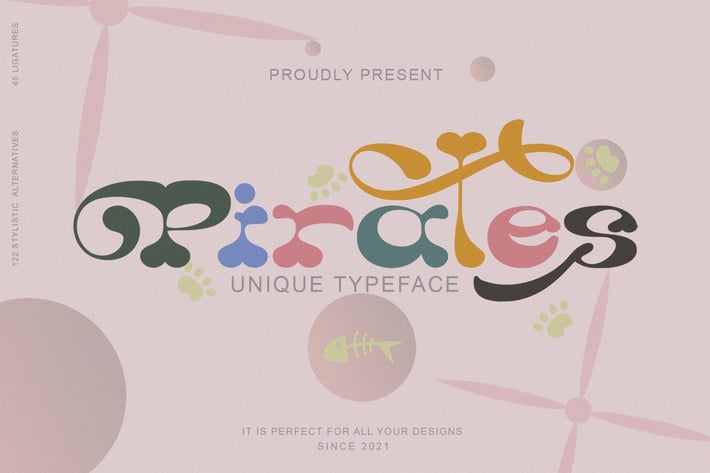
Pirates Typeface
Introducing Pirates Typeface. This font is inspired by the design styles of the 70s. The style is funny, groovy, classic, not serious but has aesthetic and unique value, besides that the Pirates font is very easy to remember and becomes the image of a design.
Pirates Typeface is very good for being your font collection because this font is very unique and easy to apply to any media that has a design concept that is not so serious, groovy, classic, funny and unique.